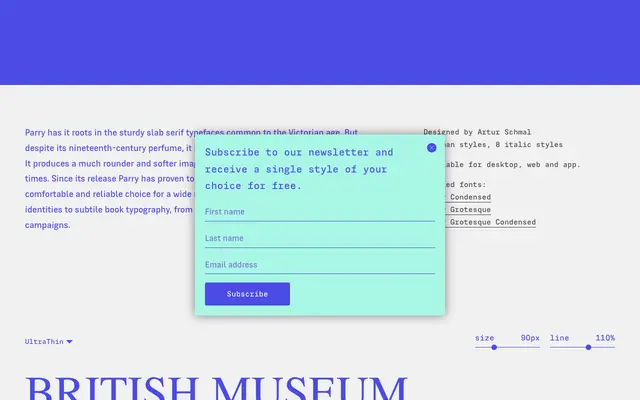
Parry
A contemporary slab serif by Artur Schmal that softens Victorian slab traditions into a rounder, more approachable form across eight weights.
Designed by Artur Schmal, Parry takes the sturdy slab serifs of the Victorian era as its starting point but departs from their rigidity with rounder, softer letterforms. Sixteen styles span eight weights from UltraThin to ExtraBlack, each with a matching italic, giving the family considerable range. The foundry positions it across corporate identity, book typography, magazines and large-format advertising.
Parry is explicitly rooted in Victorian slab serif tradition, featuring bracketed or geometric serifs and a wide weight range. Its softer, rounder forms distinguish it from rigid nineteenth-century models while remaining squarely within the slab serif genre.